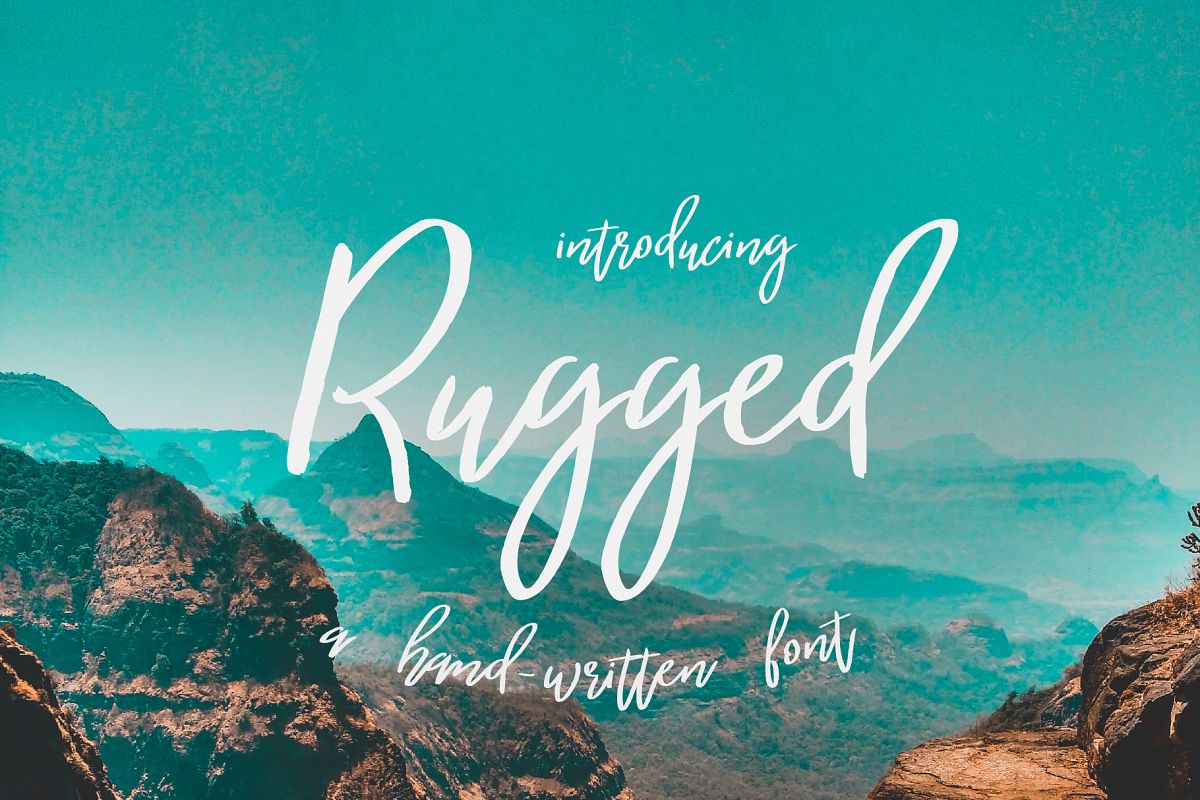
Rugged | a hand-written font
Rugged
Hello everyone! I am pleased to introduce my product - Rugged font.
This is a handwritten font. And this font is well suited for titles, quotes, phrases, signatures and branding. Also it would look great in logos, invitations, labels, heading and posters. You don't need any additional programs to use this font. Just install the font and enjoy!Don’t forget to test your characters in the font previewer below before purchase.